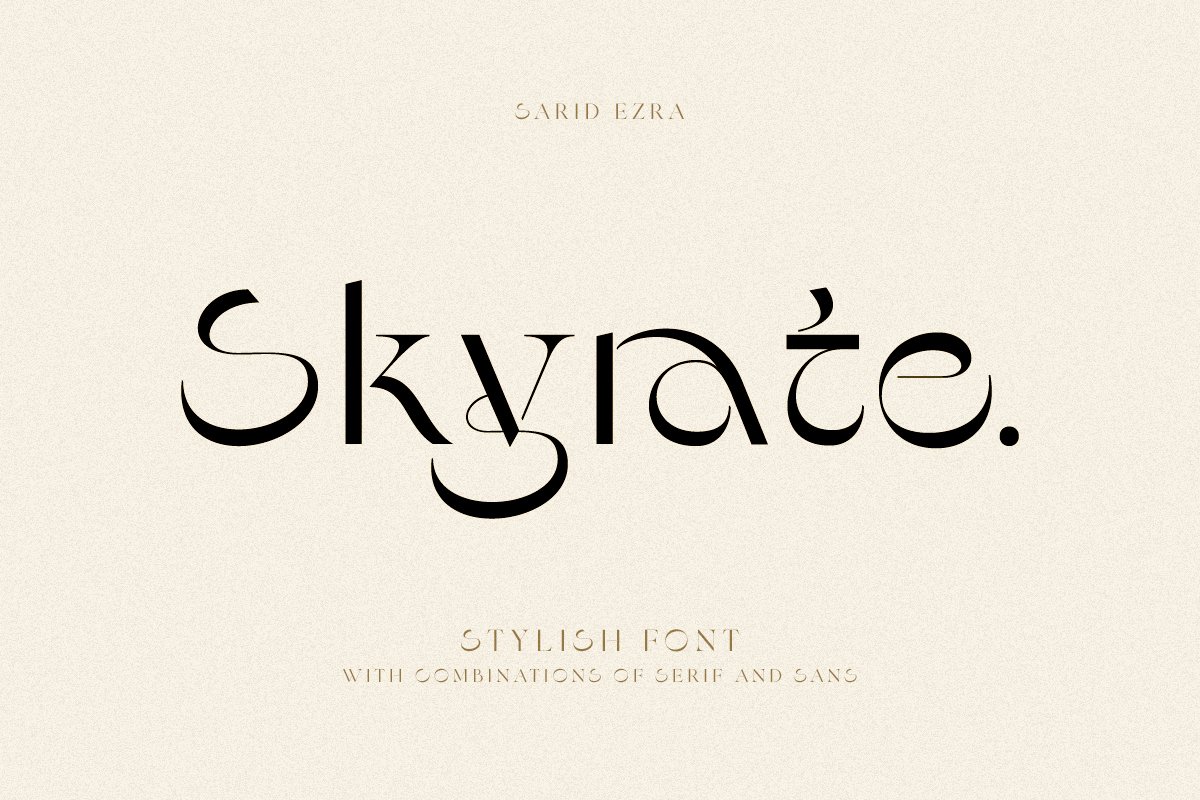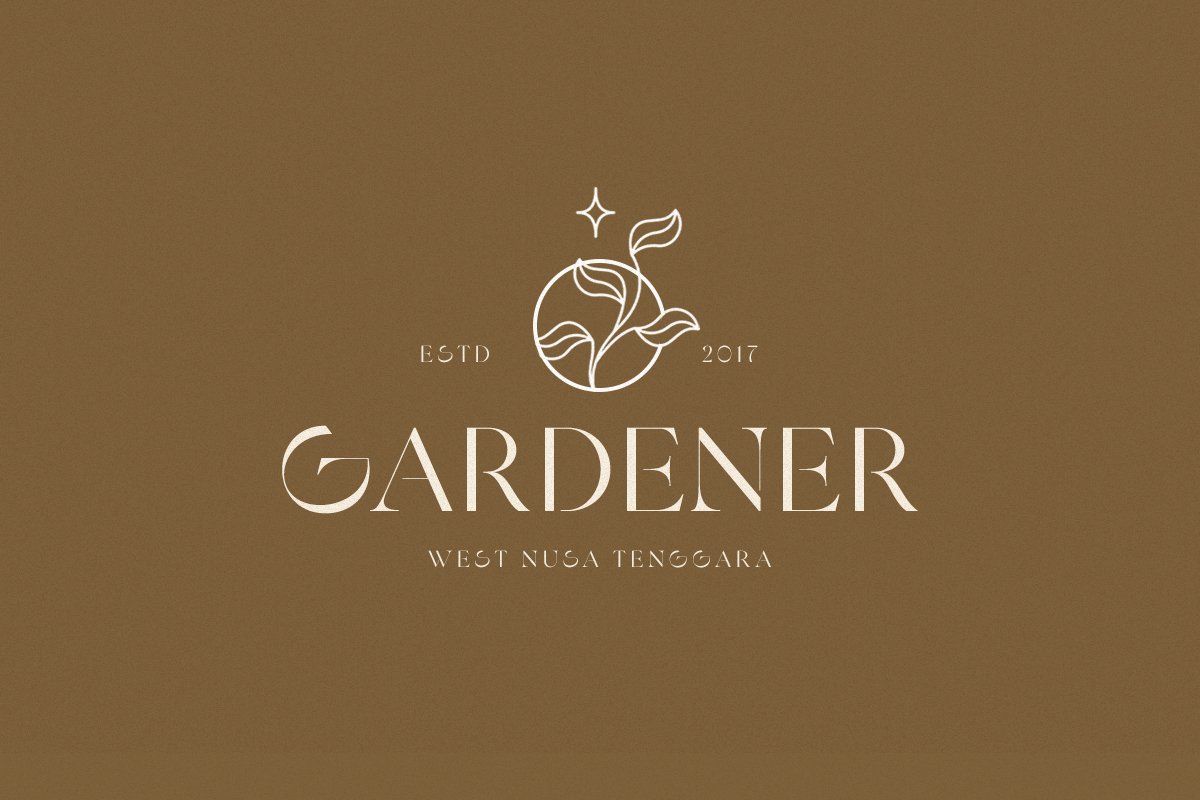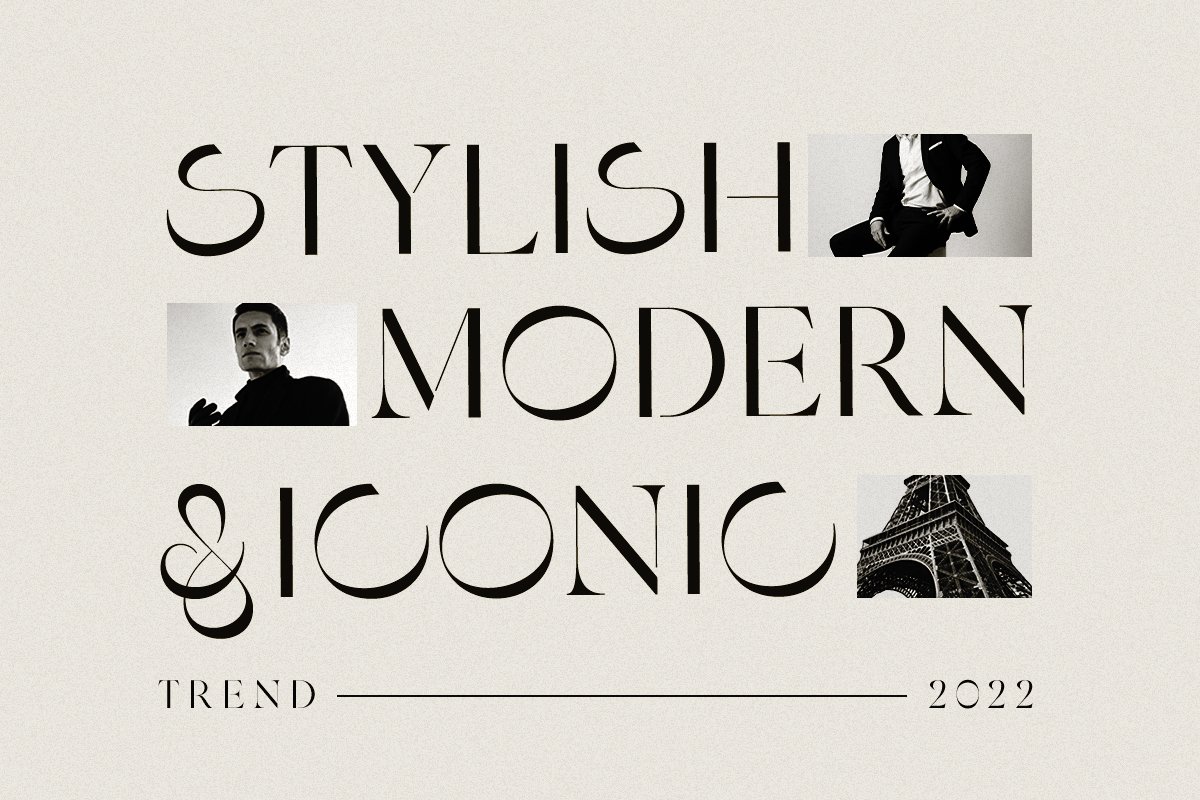
About the Skyrate Stylish Font
Introducing, Skyrate – a stylish font based on combinations of serif and sans serif!Skyrate is an elegant and stylish typeface with combinations of serif and sans serif that will make your branding, project or logo more attractive and stand out! You can use this font for any purposes such as a wedding invitations, official branding font, or even for your instagram post!** This fonts support Multi Language! Also comes with beautifully crafted details that make this font more stylish